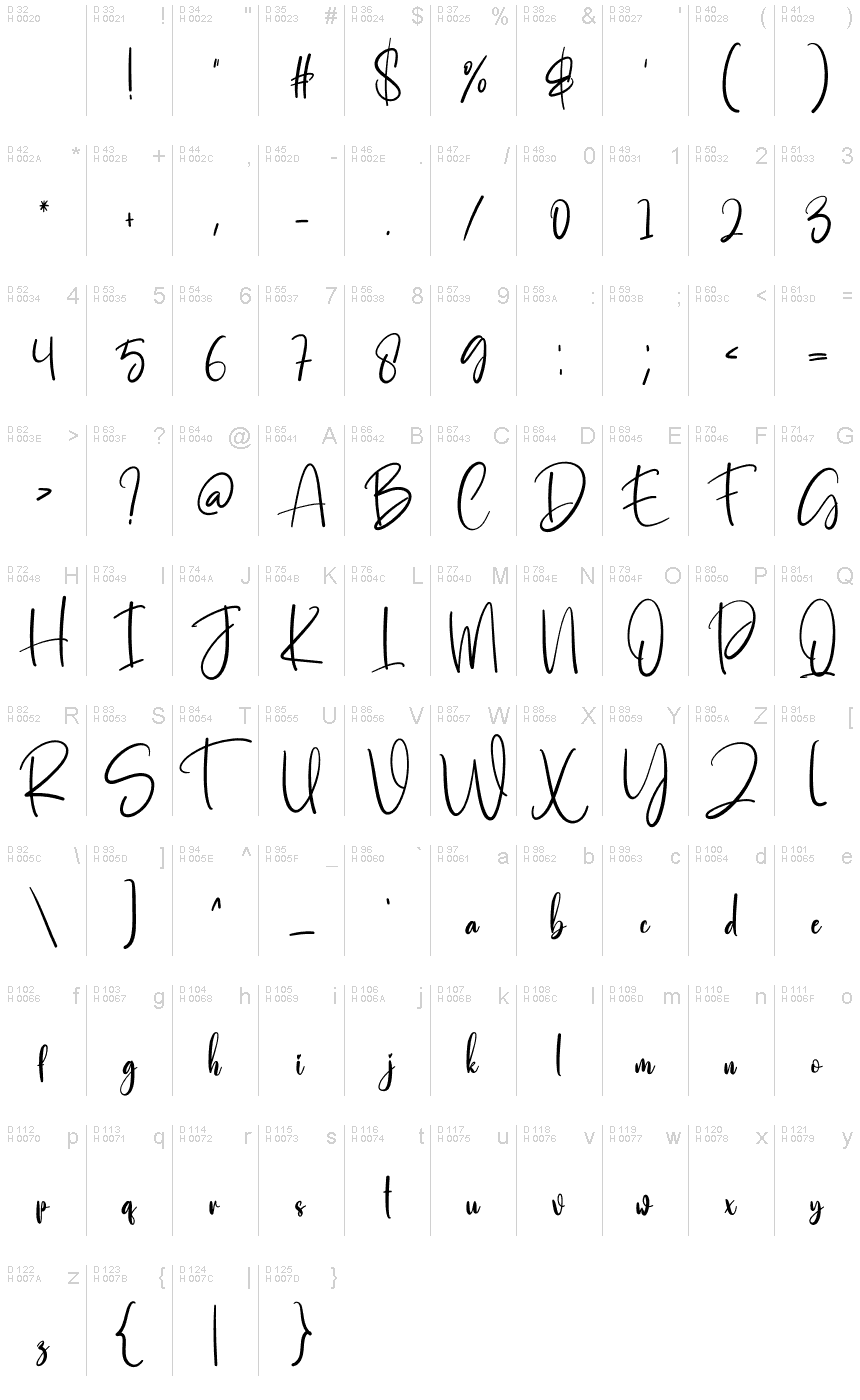
Skeleton
Skeleton, crafted by the artistic hands of Scratchones, stands out as a semi-light and semi-condensed handwritten font that echoes with personality and charm. Its graceful curves and flowing lines evoke the spontaneity of ink on paper, bringing an authentic touch to any digital canvas.
The aesthetic balance between delicacy and readability makes Skeleton a versatile choice for designers looking to inject warmth and character into their projects. The semi-condensed width ensures it is space-efficient without sacrificing its open, airy feel, ideal for both text-heavy designs and minimalist compositions.
Whether gracing the pages of a boutique magazine or adding flair to branding materials, Skeleton's inviting presence has the ability to transform words into intimate messages with its bespoke feel. This font is not just a typeface; it's an artisanal statement that resonates across various creative endeavors.